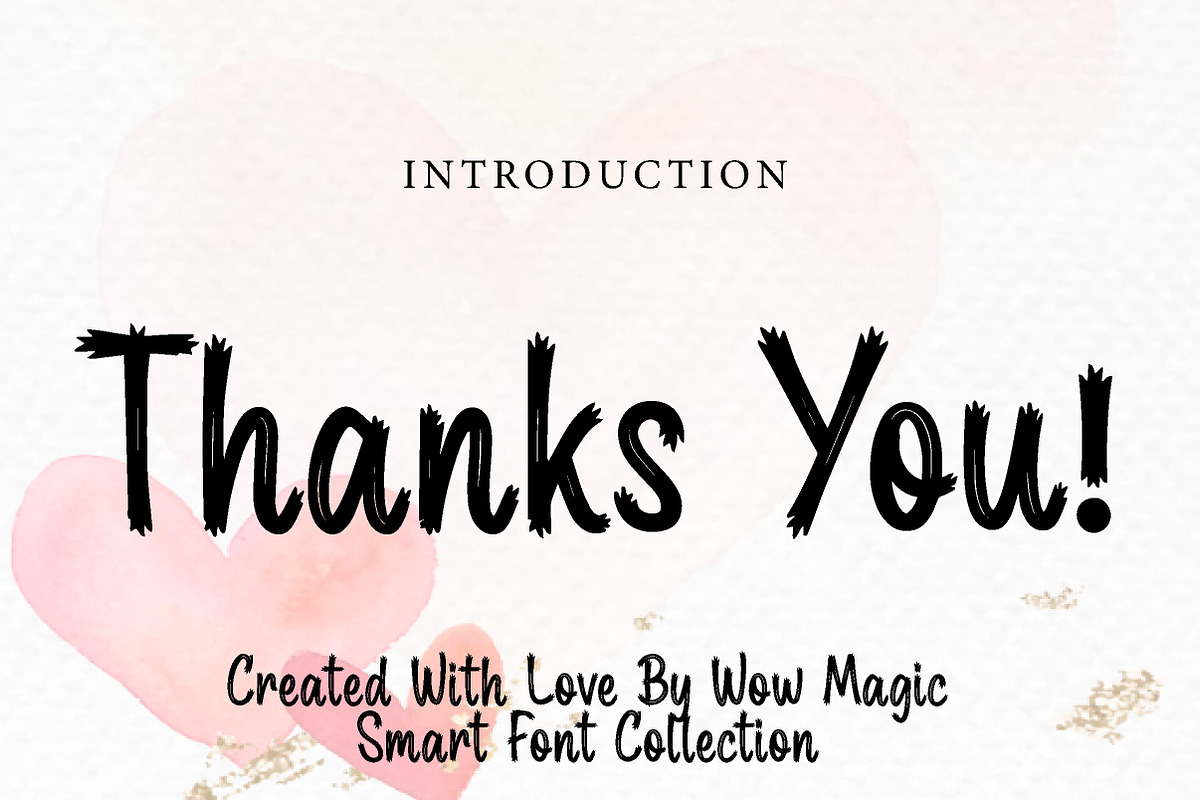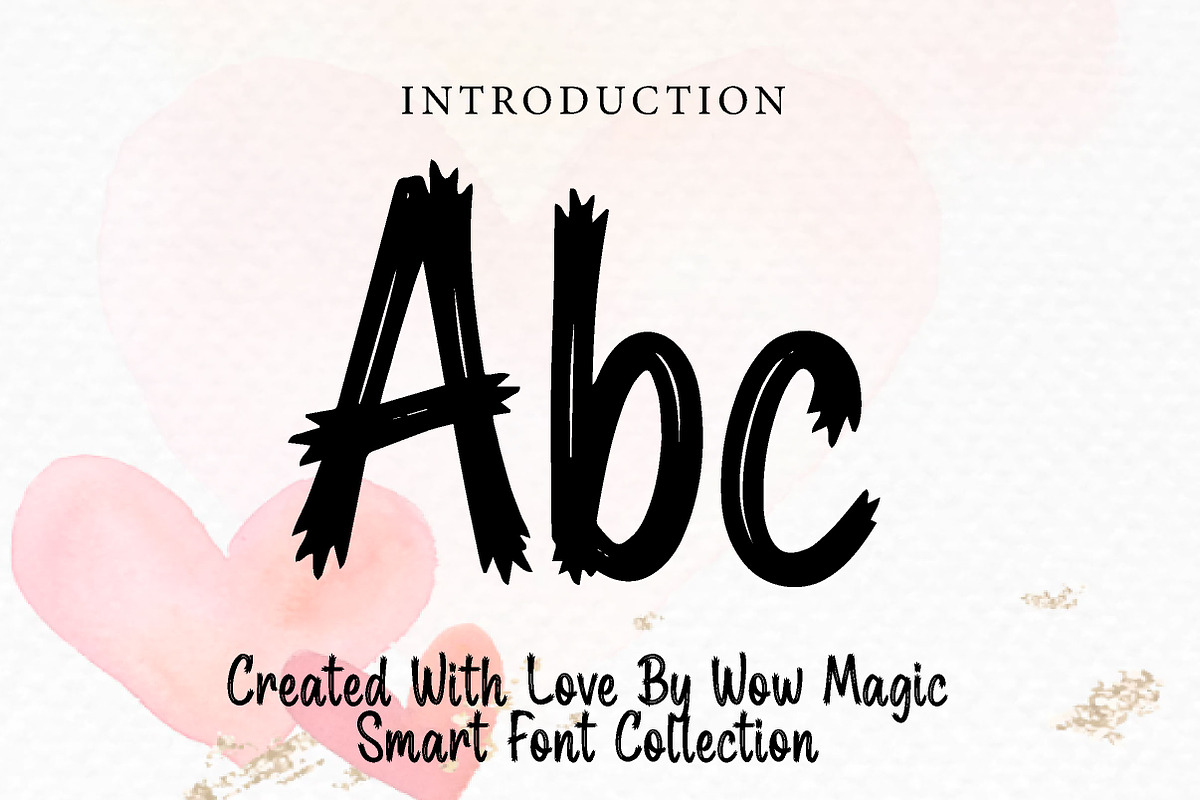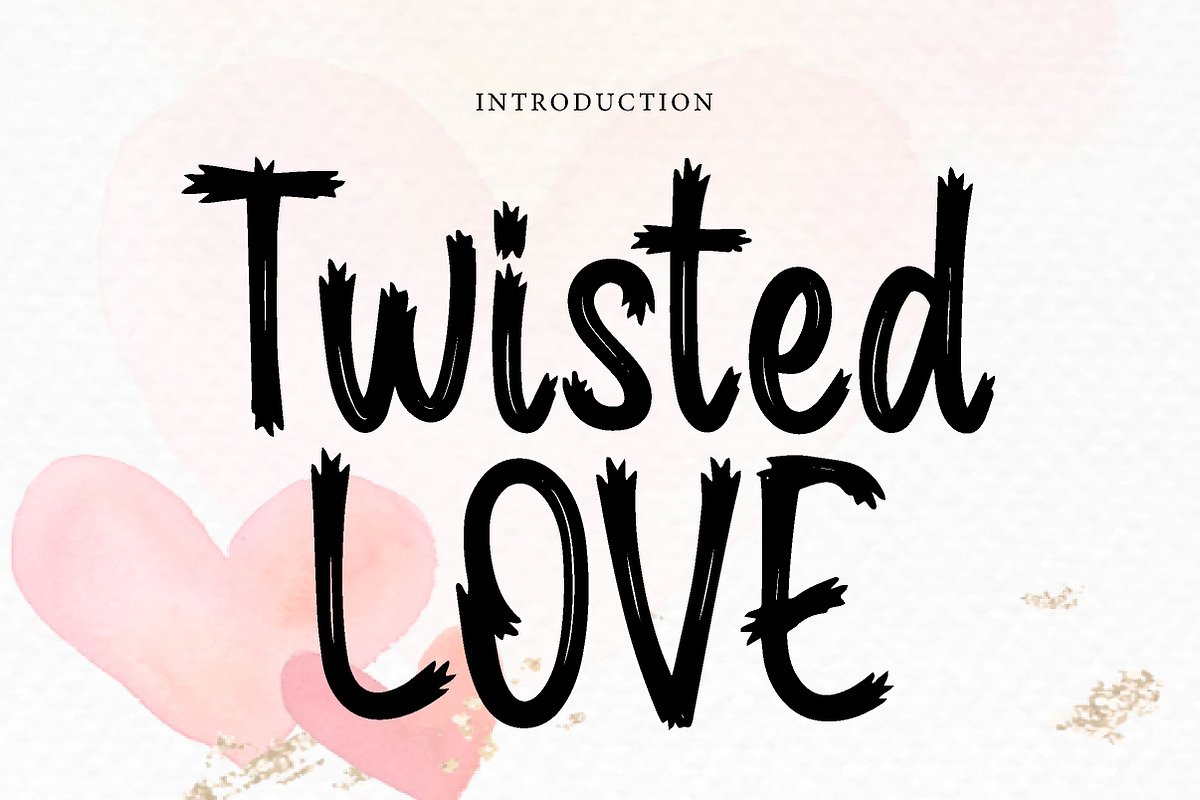
Twisted Love
Twisted Love – Romantic Decorative Display Font
Short Description
Twisted Love is a romantic, playful, and decorative display font, perfect for Valentine designs, wedding projects, branding, invitations, packaging, and heartfelt creative work.
Full Description
Twisted Love is a charming decorative display font designed to bring love, warmth, and personality into your designs. With its expressive character, playful style, and romantic mood, this font creates a sweet and eye-catching look that feels both creative and memorable.
Its lovable and decorative appearance makes Twisted Love perfect for projects that need an emotional and stylish touch. Whether you are designing Valentine’s Day cards, wedding invitations, beauty branding, gift packaging, social media graphics, stickers, or cute logo concepts, this font helps your typography stand out with charm and feeling.
The font’s romantic personality makes every word look more special, making it a beautiful choice for both print and digital projects. Twisted Love is ideal for designers who want a typeface that feels playful, decorative, and full of heart.